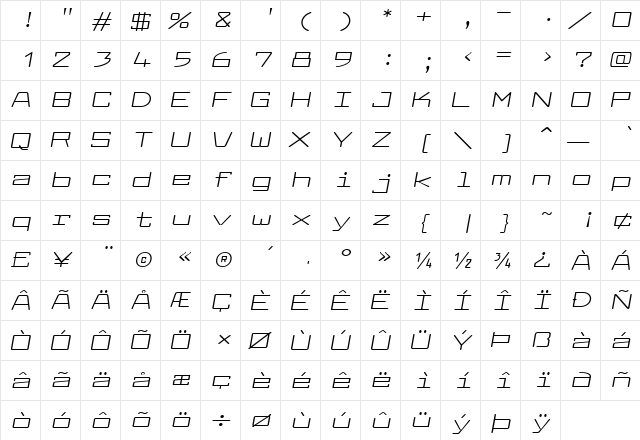
Larabiefont Xtrawide Italic
Design Context for Larabiefont Xtrawide Typeface
Larabiefont Xtrawide offers clean, dependable letterforms without strong stylistic allegiance, making it a practical choice for designers who need flexibility. Its italic angle brings a sense of urgency and motion to the letterforms.
Pro Tip: Try Larabiefont Xtrawide for annotation and caption copy alongside an upright companion — the contrast in angle creates a dynamic but ordered typographic system.